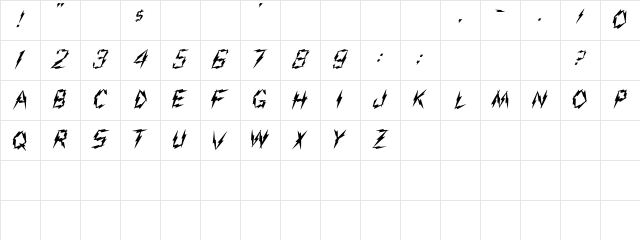
Aarcover Regular
Design Context for Aarcover
Aarcover is a composed and adaptable typeface that performs quietly and consistently across a wide range of design contexts.